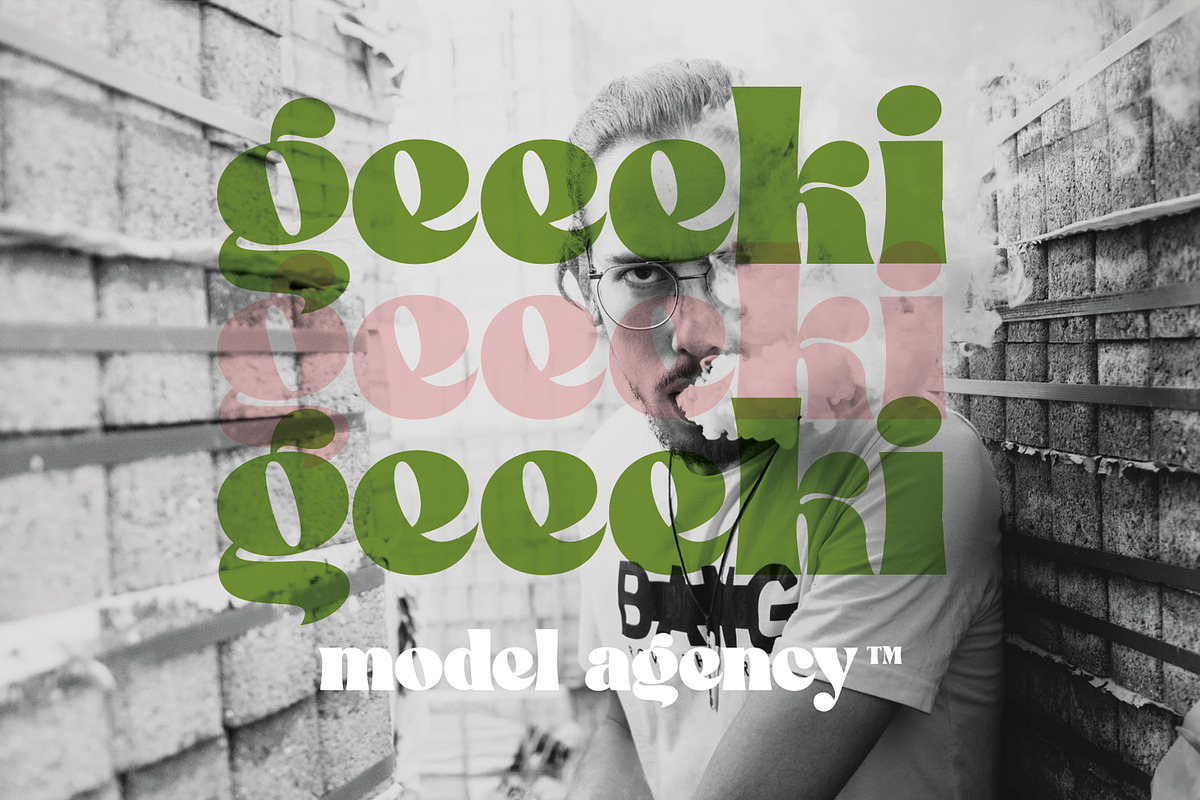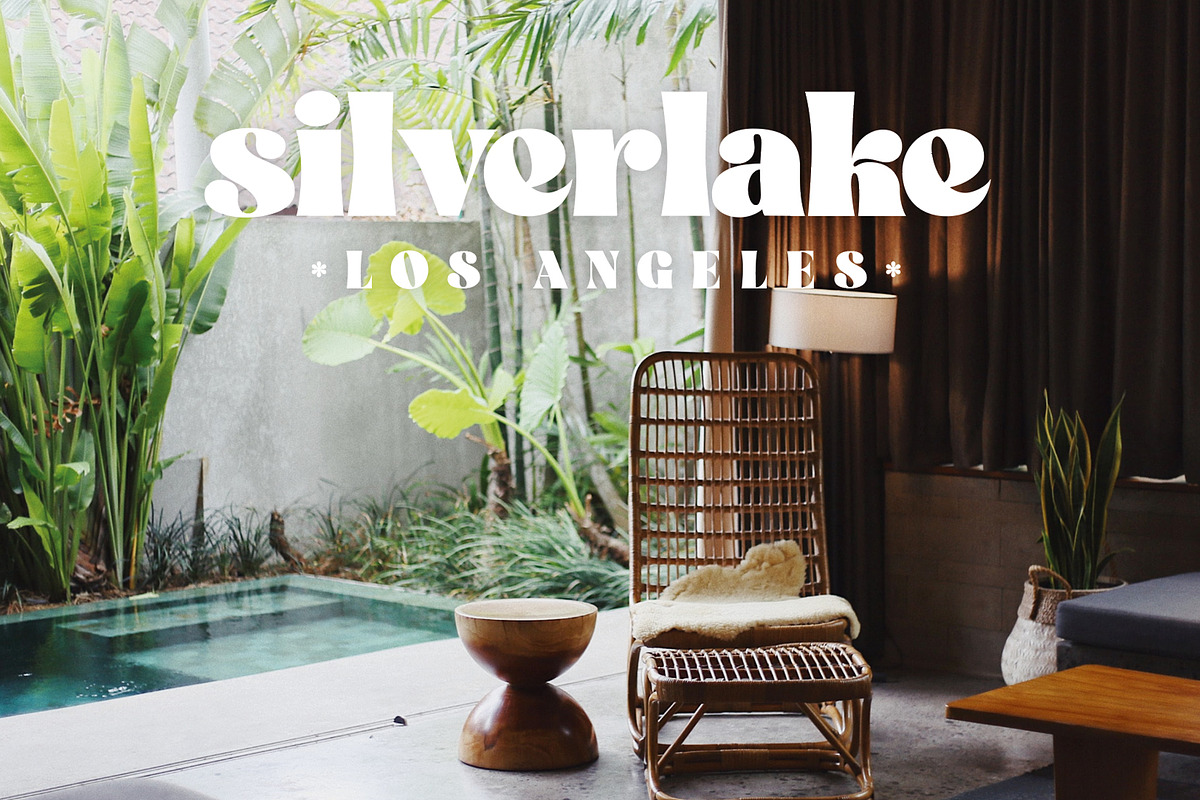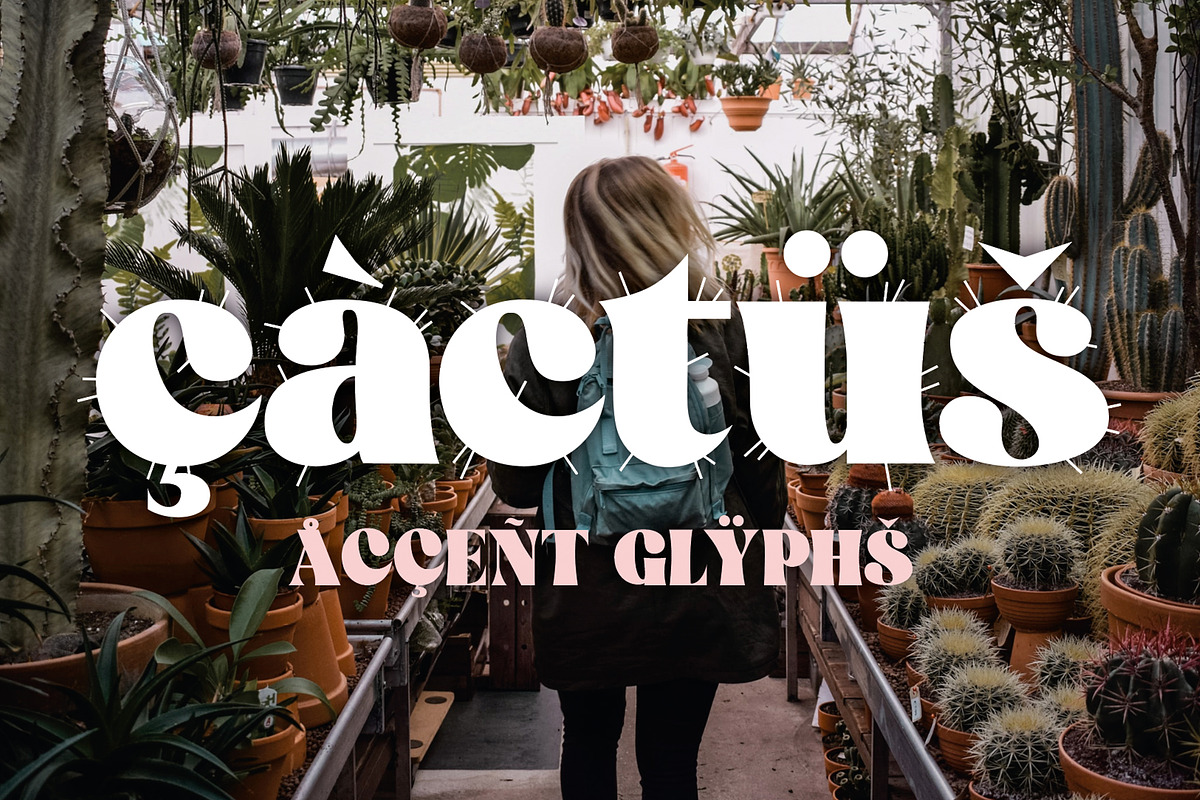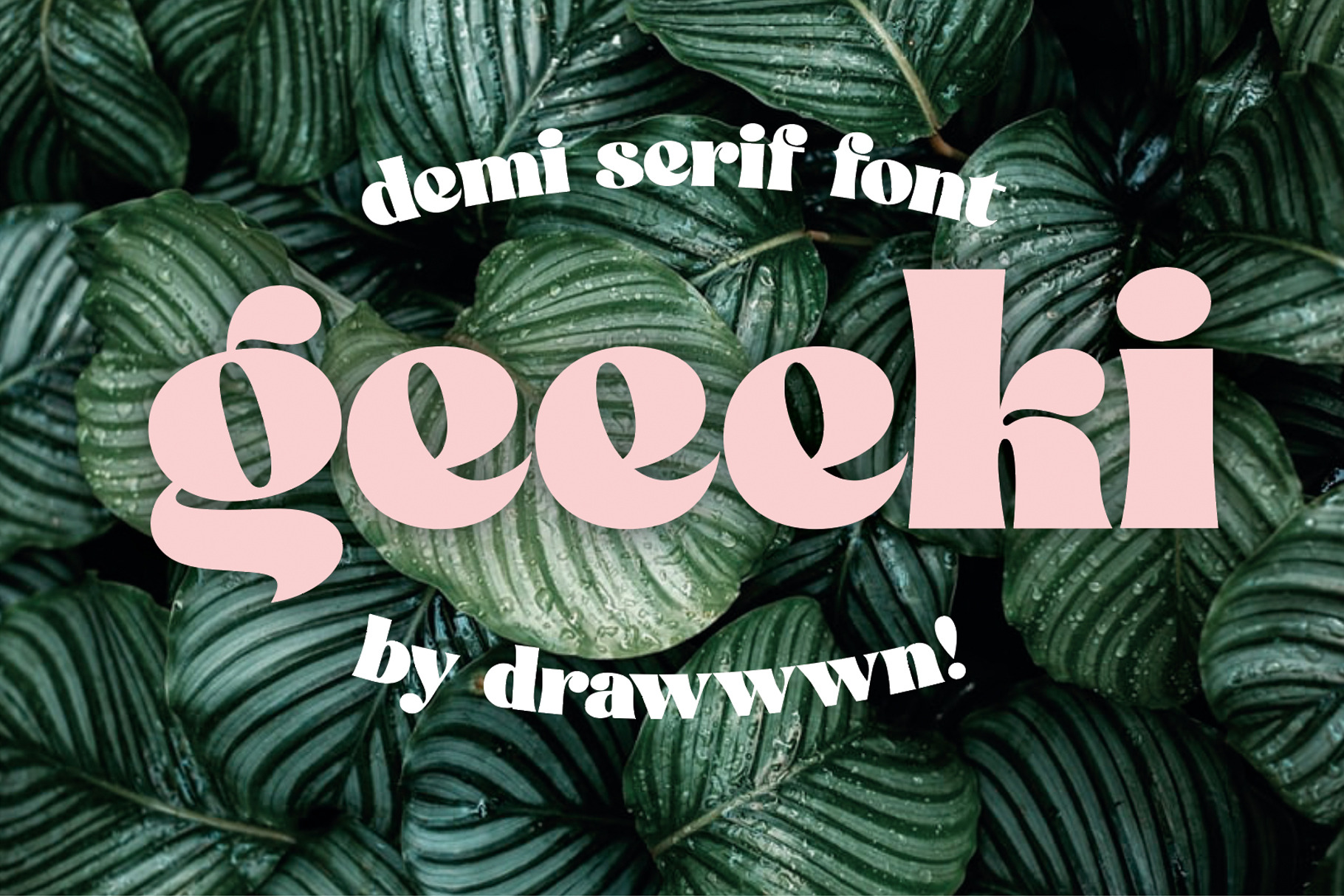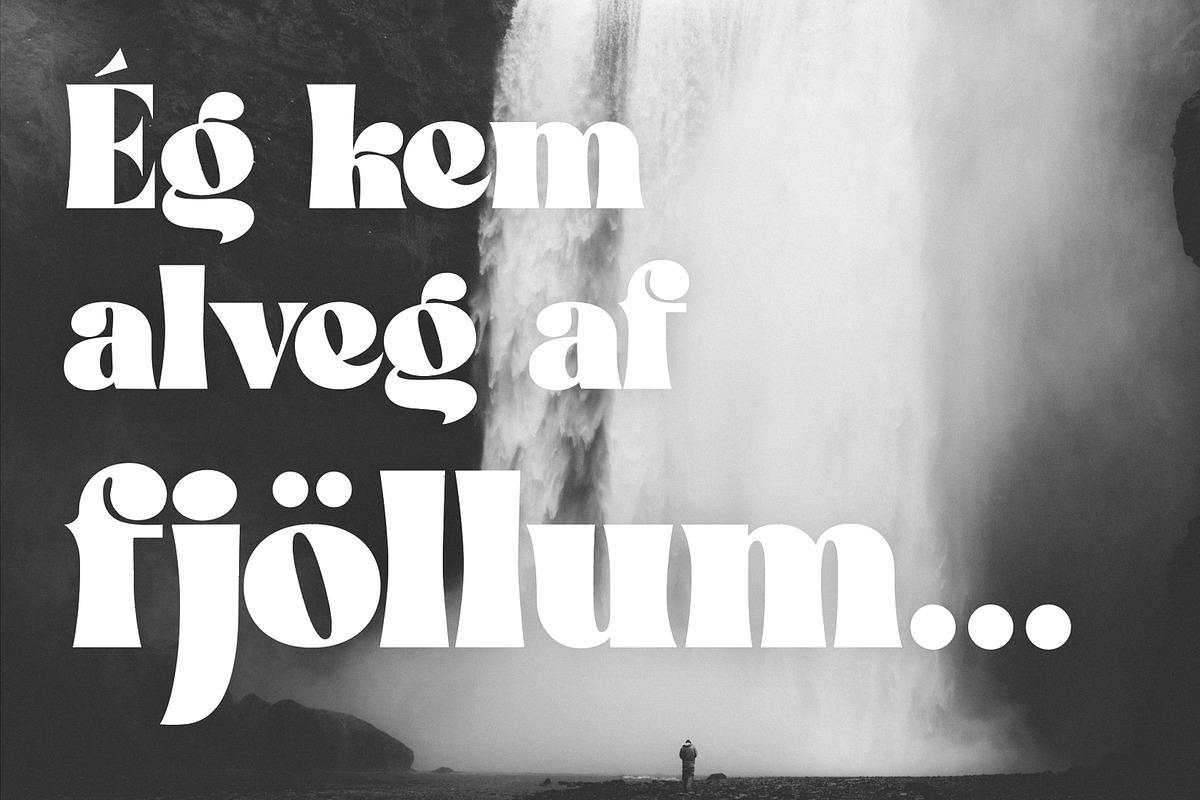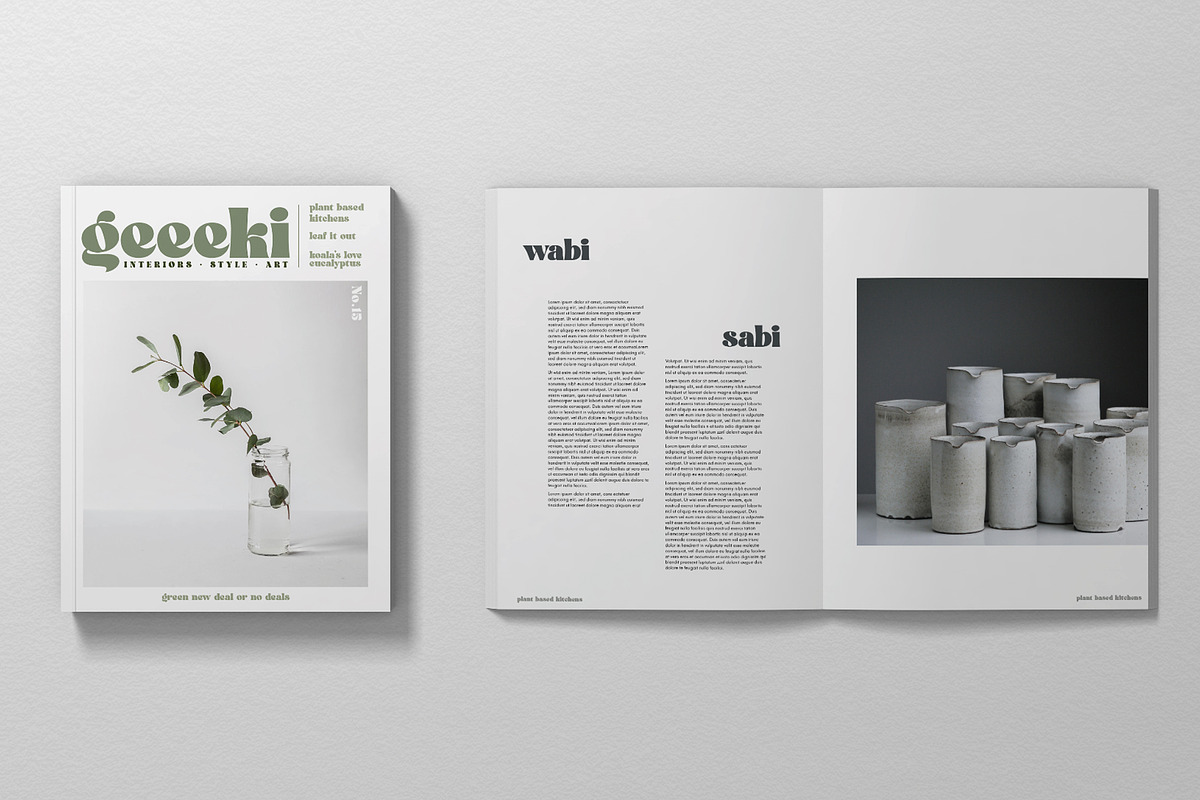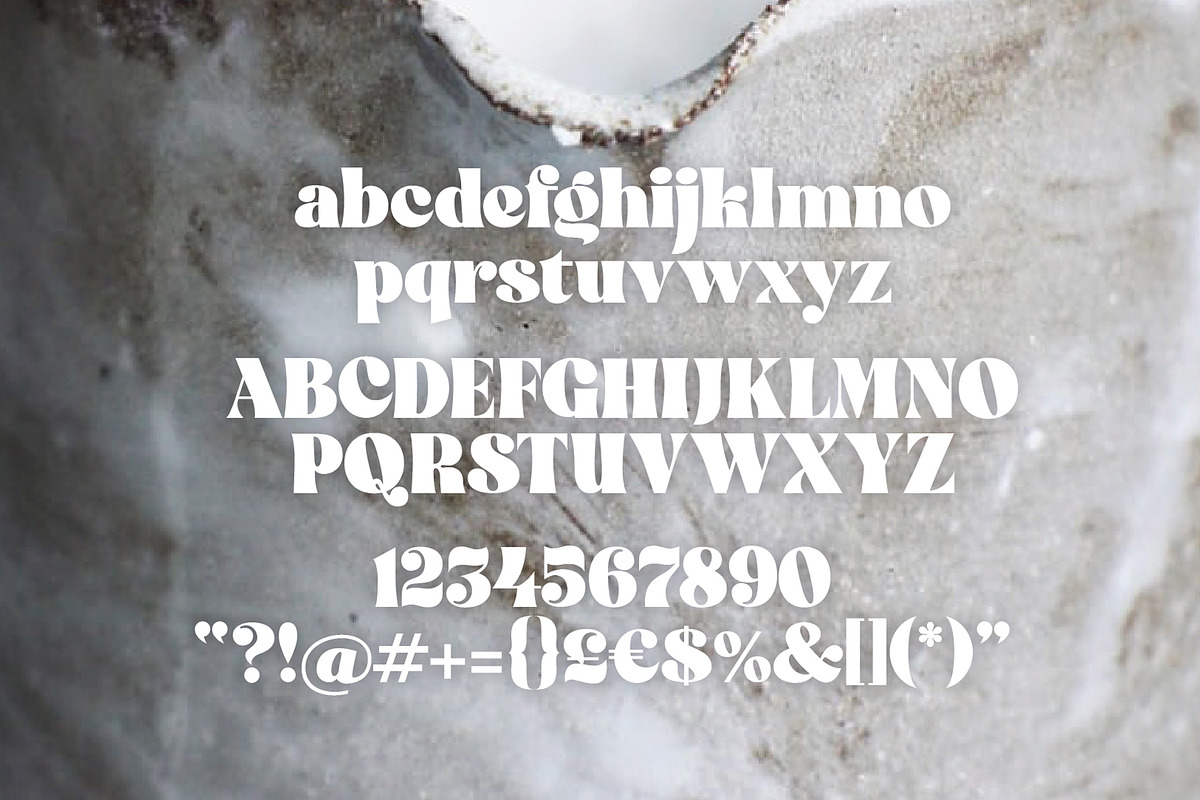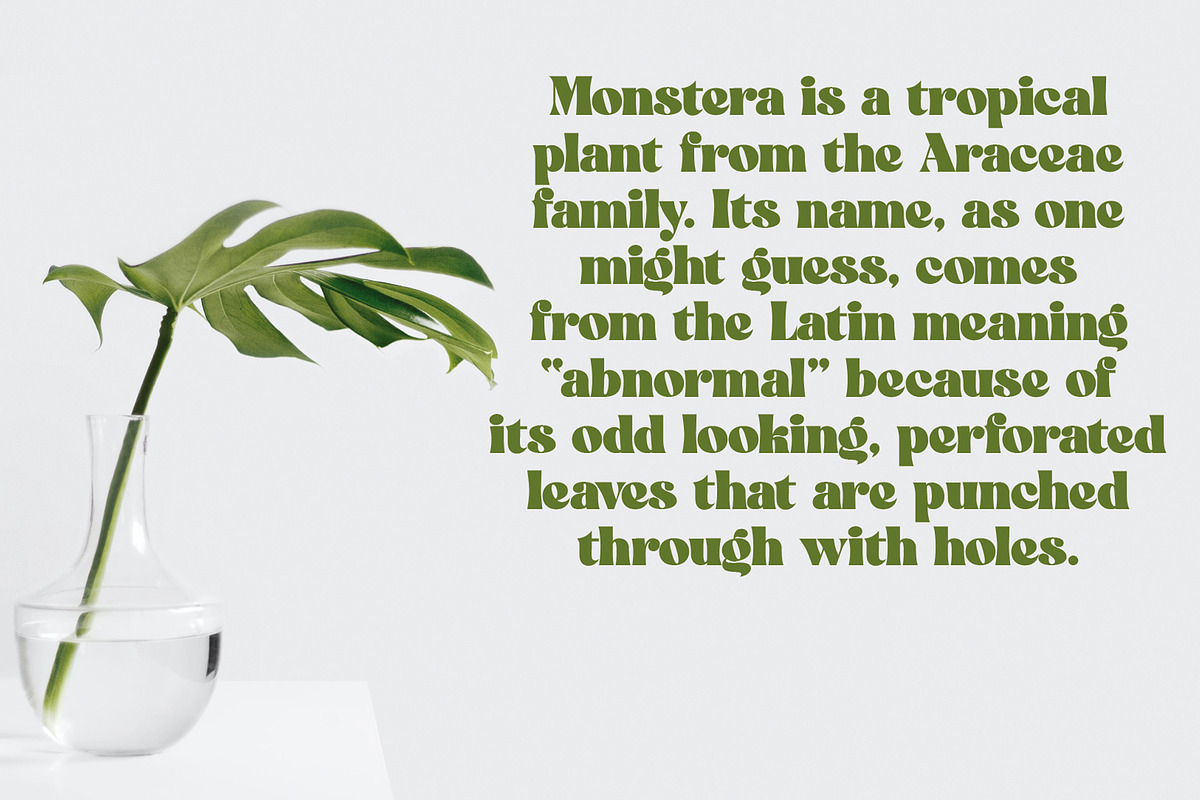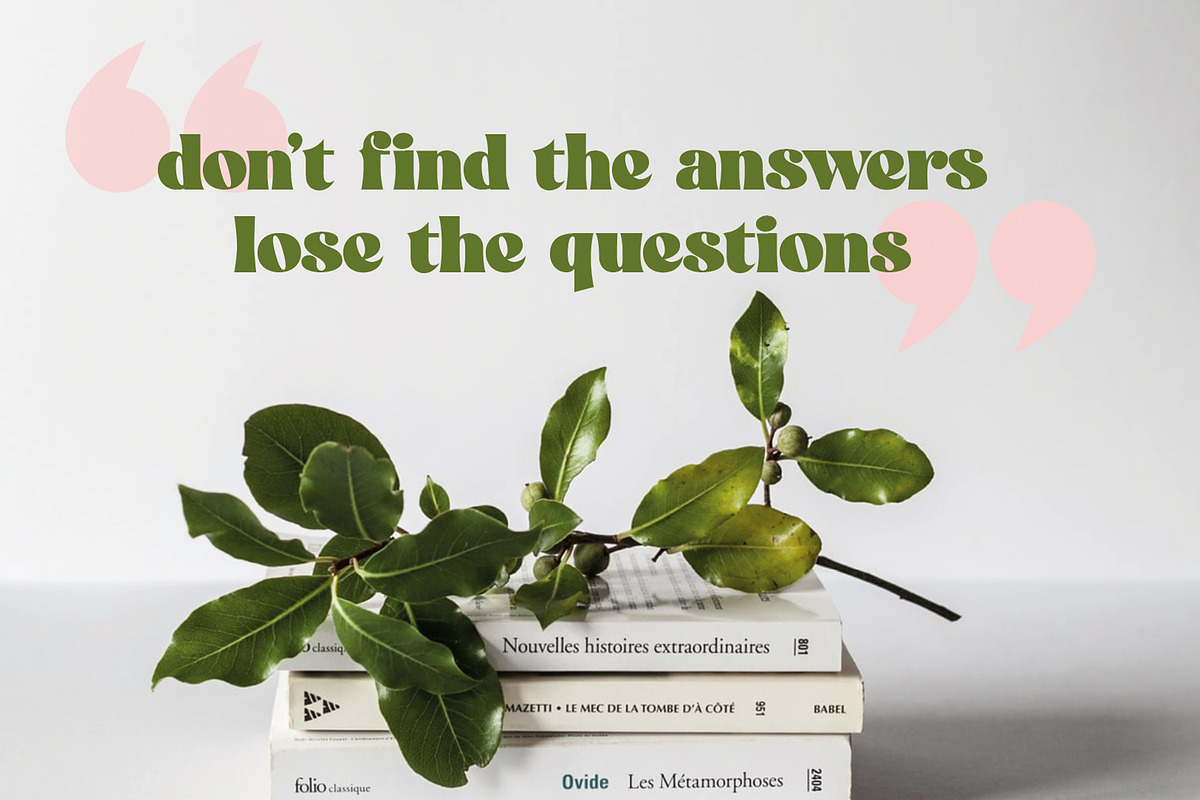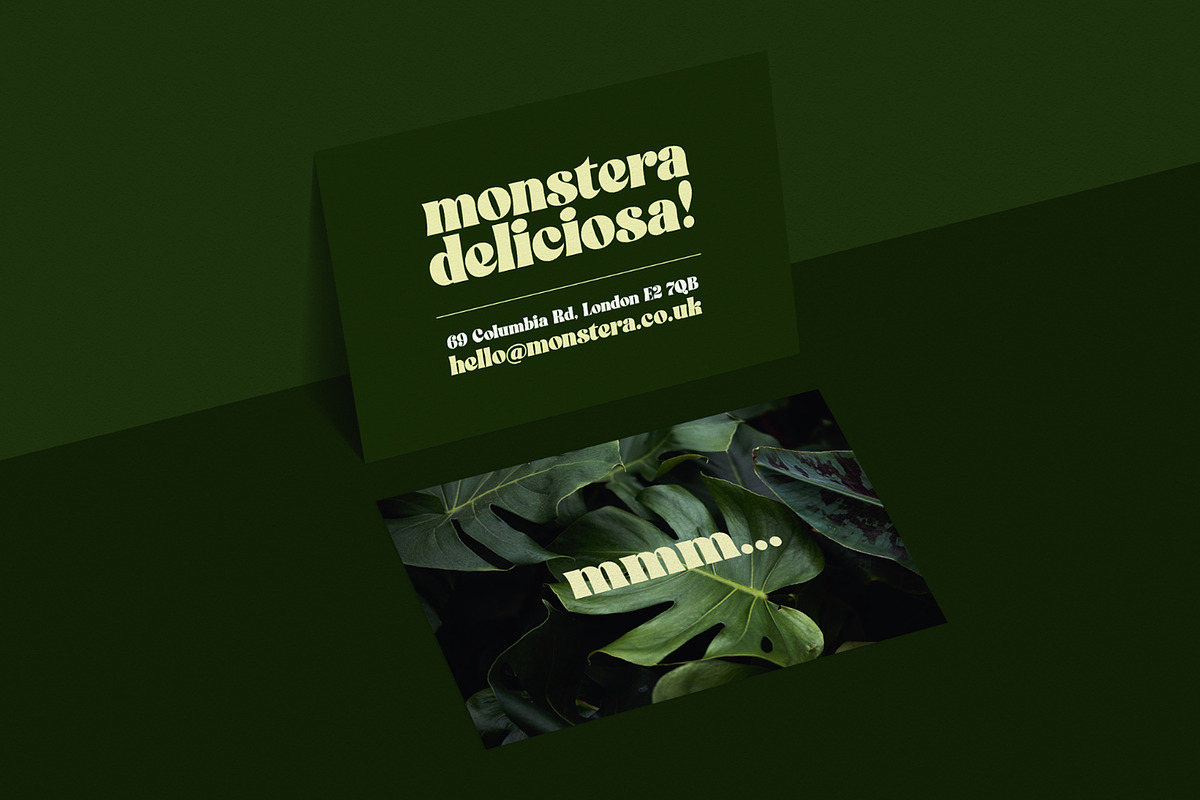
Geeeki - fat serif font
Geeeki is a playful semi serif font, it's cute yet nerdy, stylish but dorky. Bold and chunky, it's a unique headline grabber, so it's the perfect match for style magazines, fashion brands and whimsical websites. Find your inner super-geek!